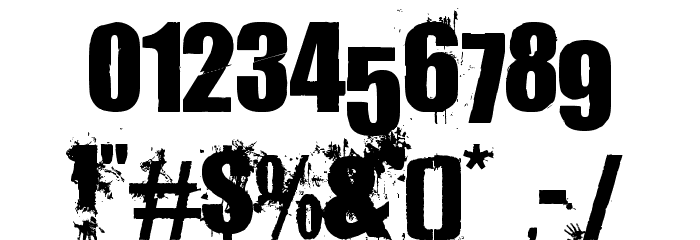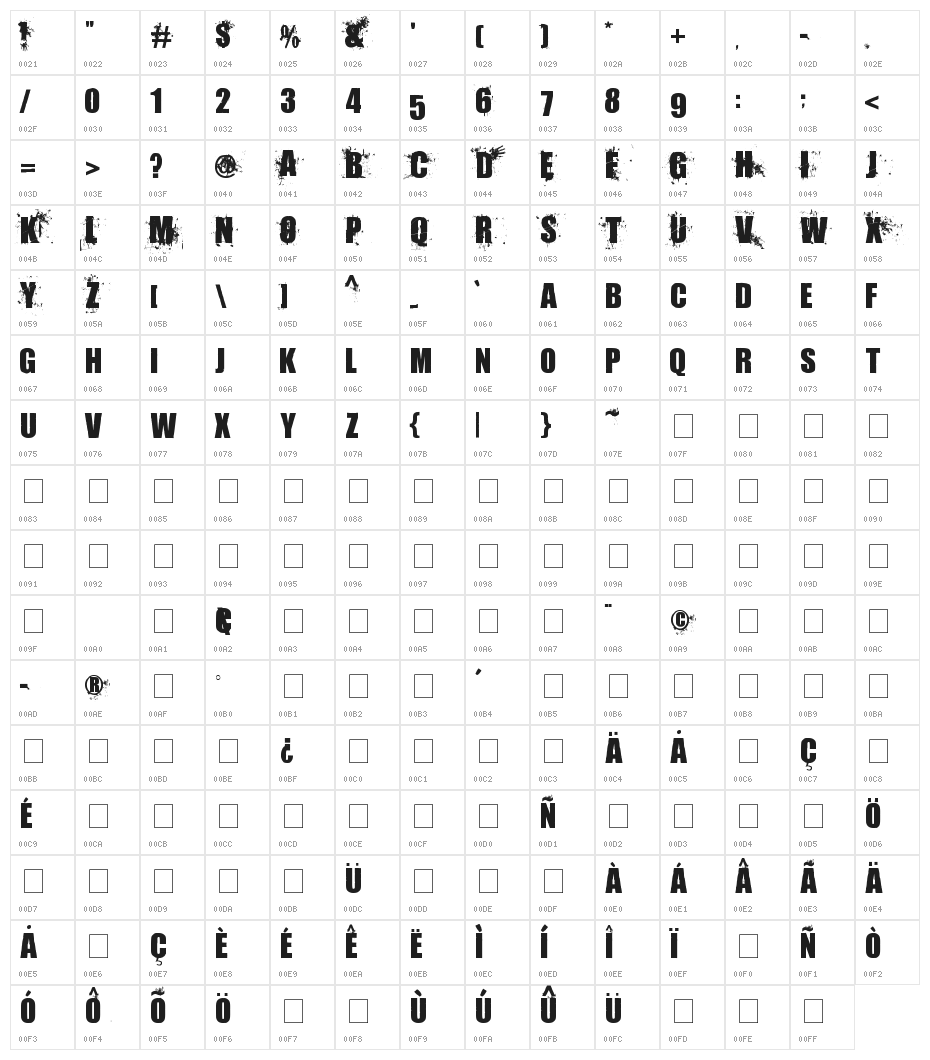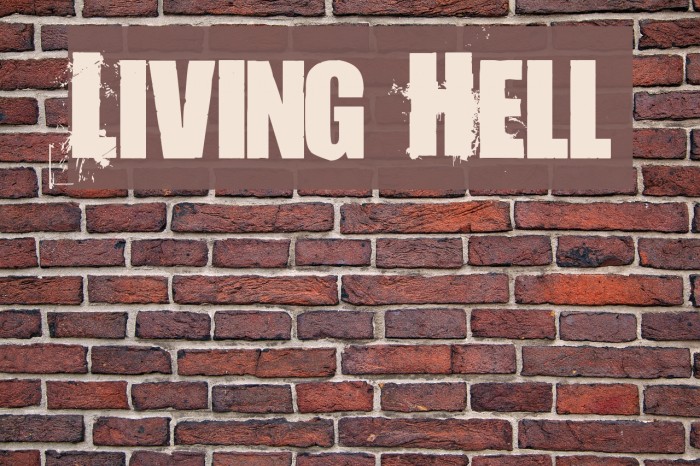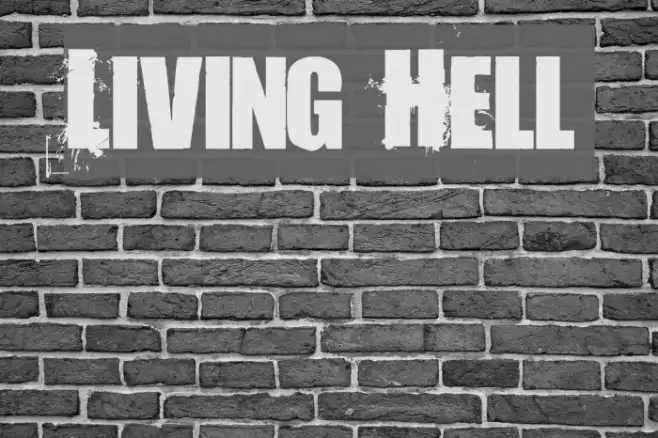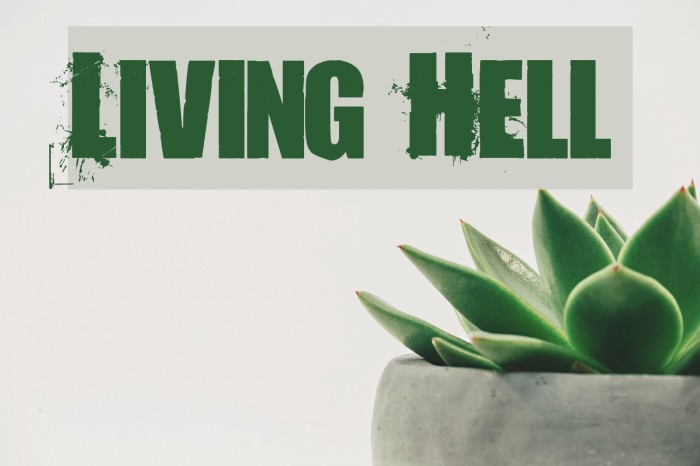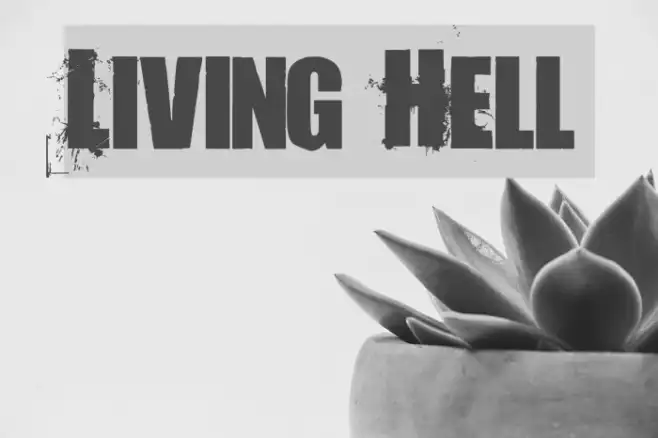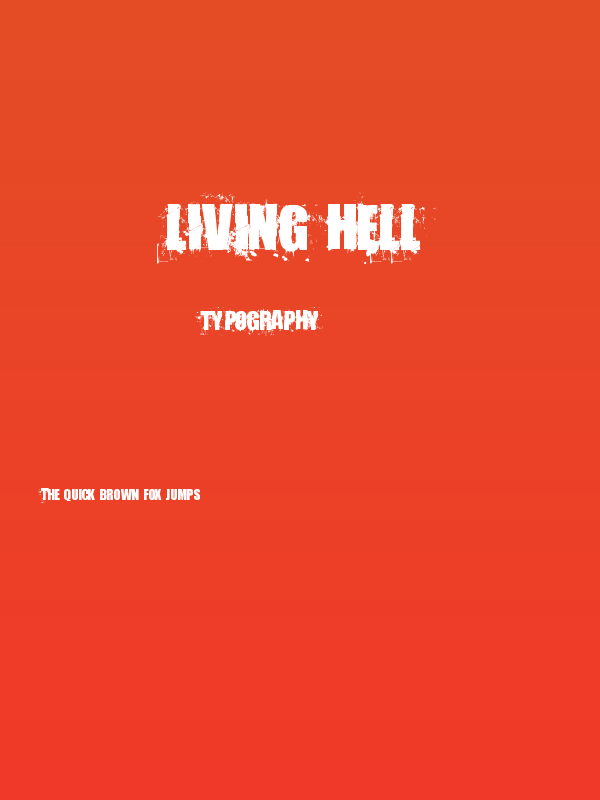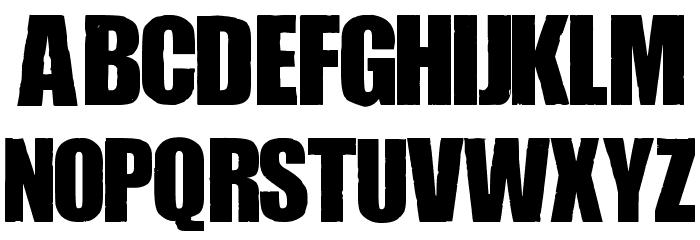
Living Hell Font
Living Hell Description
This font features a bold and distressed style, with a grunge texture that gives it a rugged and edgy appearance. The uppercase letters are prominent and impactful, while the numbers and special characters maintain the same boldness and texture. The rough edges and uneven strokes create a chaotic yet artistic feel, making it ideal for designs that require a strong and rebellious aesthetic. The font's distressed look is consistent across all characters, adding to its cohesive and striking visual impact.
| Proposed Projects | Ideal for music album covers, posters, streetwear branding, and any project needing a rebellious or edgy vibe. |